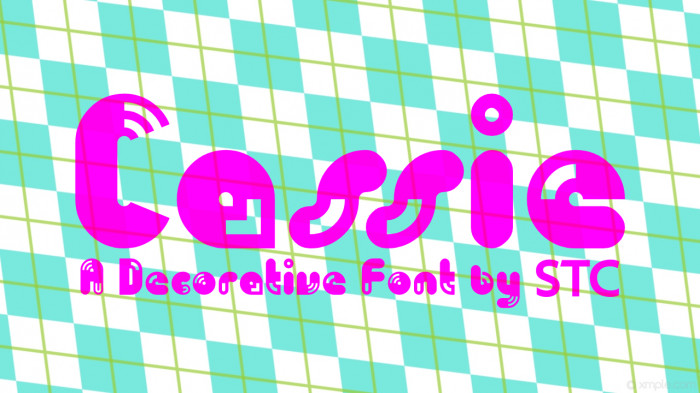
• Cassie is a Decorative font with connection brick forms with a connecting macaroni triline and connecting macaroni biline with a Straighten half snapped-stripes that give the font looks clean & rounded.
This makes for a more natural reading rhythm more commonly found in decorative types. This font was made by Swedish Type Corp.